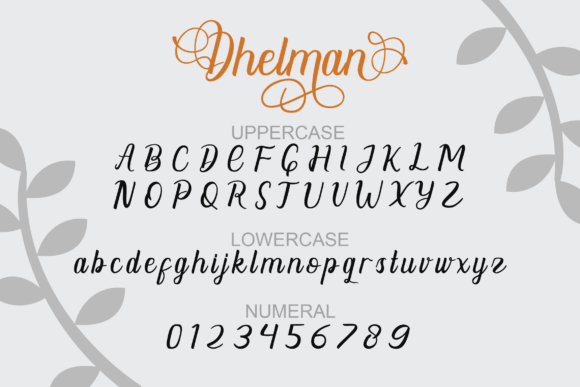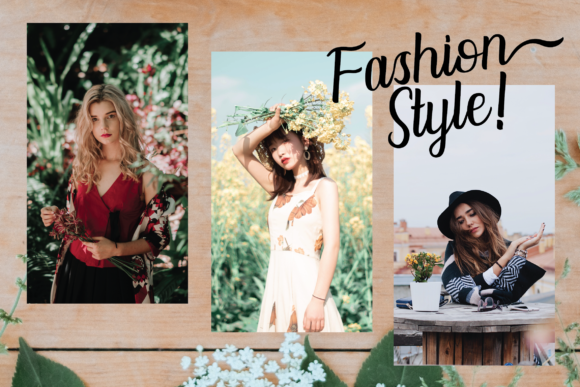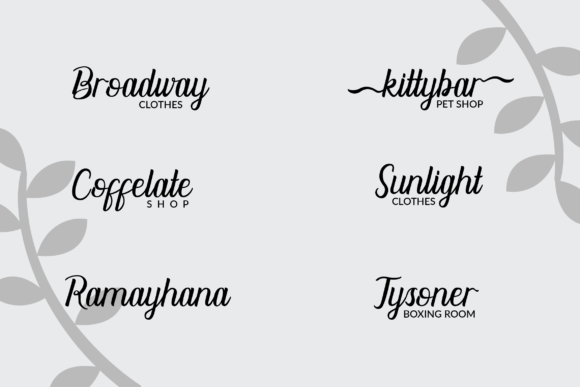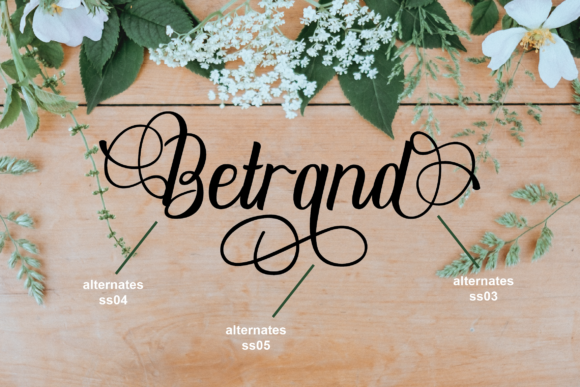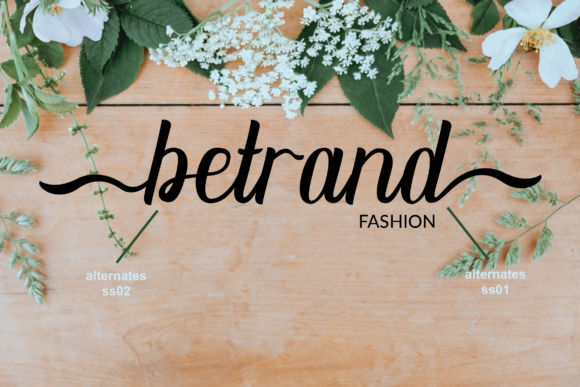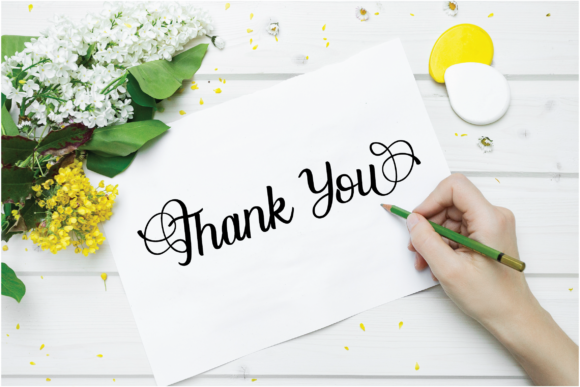
Dhelman Script Font
Dhelman is an incredibly beautiful script that will work well in a wide variety of design projects. Its stunning swashes will draw anyone’s attention!